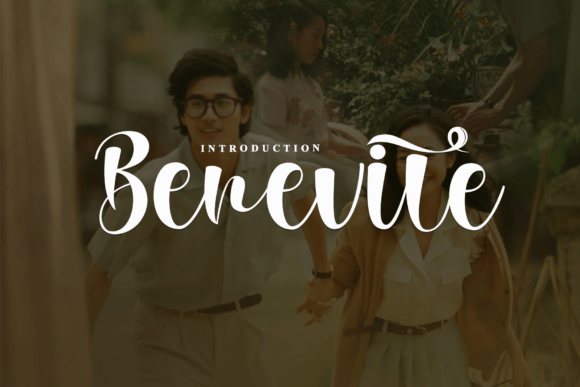
Bringing Personality to Your Designs
Have you ever stared at a blank page, waiting for inspiration to strike? That’s exactly what happened to me last week. I was brainstorming ideas for a new project, and I wanted to create something truly unique. I started sketching out rough ideas, but it wasn’t until I stumbled upon the Benevite Font that everything came together.
This lovely and timeless handwritten font is the perfect choice for creating eye-catching logos, branding, and quotes. Its unique touch adds a personal and beautiful element to any design, making it truly come alive. Whether you’re a seasoned designer or just starting out, the Benevite Font is an invaluable tool in your creative arsenal.
With its versatility and charm, the Benevite Font is sure to elevate your designs and leave a lasting impression on your audience.
Benevite Font Key Features
- Unique Characteristics: Benevite Font features a unique blend of modern and elegant styles, with subtle rounded edges and a sophisticated feel
Benevite Font Review
I recently had the chance to work with the Benevite font, and I’m sharing my honest review with you.
- The Benevite font has a clean and modern design, making it perfect for contemporary projects.
- The font’s bold and light weights work well together, allowing for great flexibility in typography.
- The font is highly legible, even at small sizes, which is a must-have for any font.
- The font’s character set is limited, which might not be suitable for languages that require a wide range of characters.
- The font’s italic and oblique styles could be improved to better match the regular style.
Overall, I think the Benevite font is a solid choice for projects that require a modern and clean design. While it has some limitations, it’s a great option for those who want a versatile font with a strong character. With some minor improvements, I believe the Benevite font could become a top choice for designers.
Benevite Font: A Practical Application Guide
Tips for Getting the Most Out of Benevite Font
To get the most out of the Benevite font, use it in combination with other elegant elements, such as cursive scripts and intricate graphics. Experiment with different font sizes and styles to create a unique design. You can also use the font to create a vintage or retro look by pairing it with distressed textures and colors.
The Benevite font is perfect for a variety of designs, including:
- Event invitations and promotional materials
- Stationery and business cards
Alternatives to Benevite Font
Playfair Display is a luxurious, high-end serif font that is perfect for creating a sense of sophistication and elegance. It is ideal for use in high-end branding, luxury advertising, and special occasion designs.
Compared to Benevite Font, Playfair Display has a more refined and ornate feel, making it better suited for formal or high-end designs. Benevite Font, on the other hand, has a more modern and minimalist aesthetic.
Great Vibes is a modern, elegant script font that is perfect for creating a sense of warmth and sophistication. It is ideal for use in branding, advertising, and packaging designs.
Compared to Benevite Font, Great Vibes has a more fluid and cursive feel, making it better suited for designs that require a sense of movement and flow. Benevite Font, on the other hand, has a more geometric and modern aesthetic.